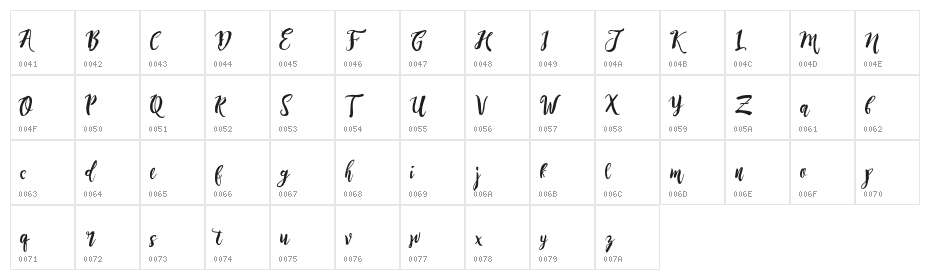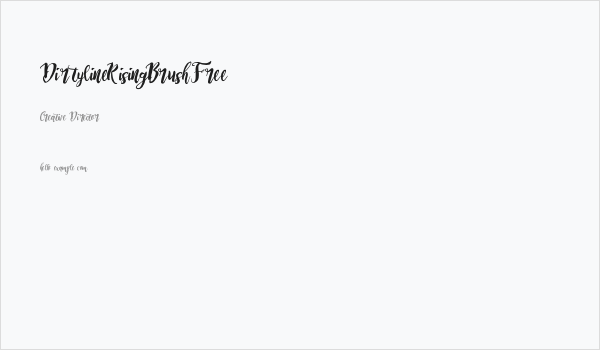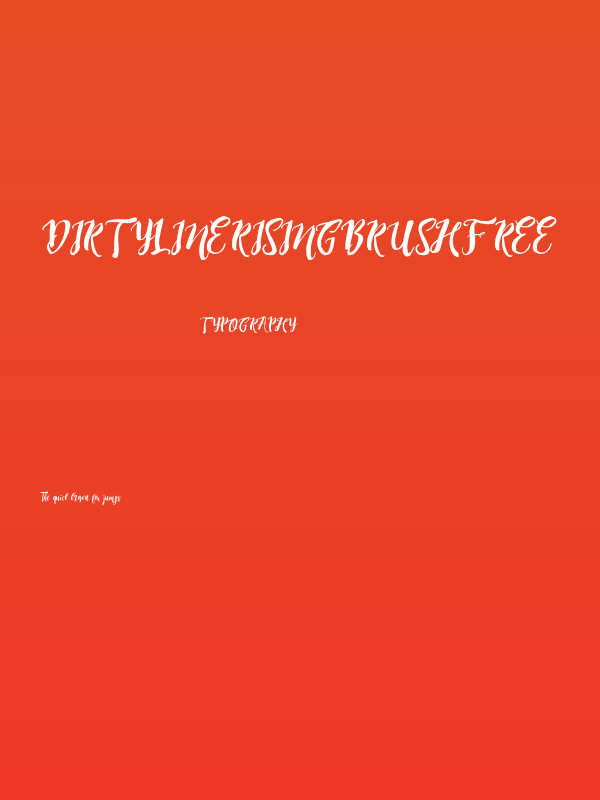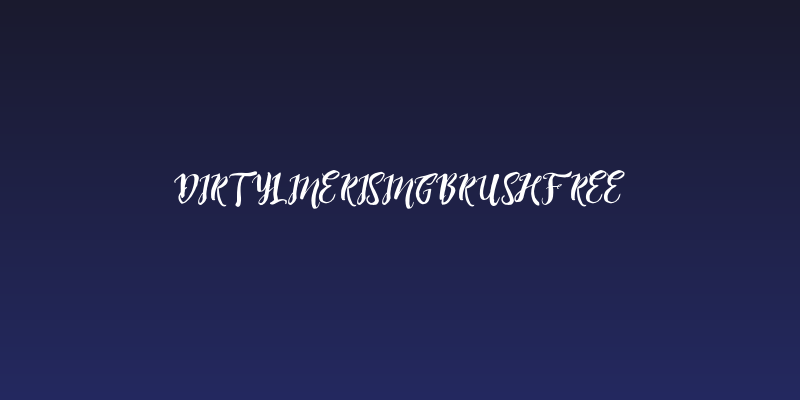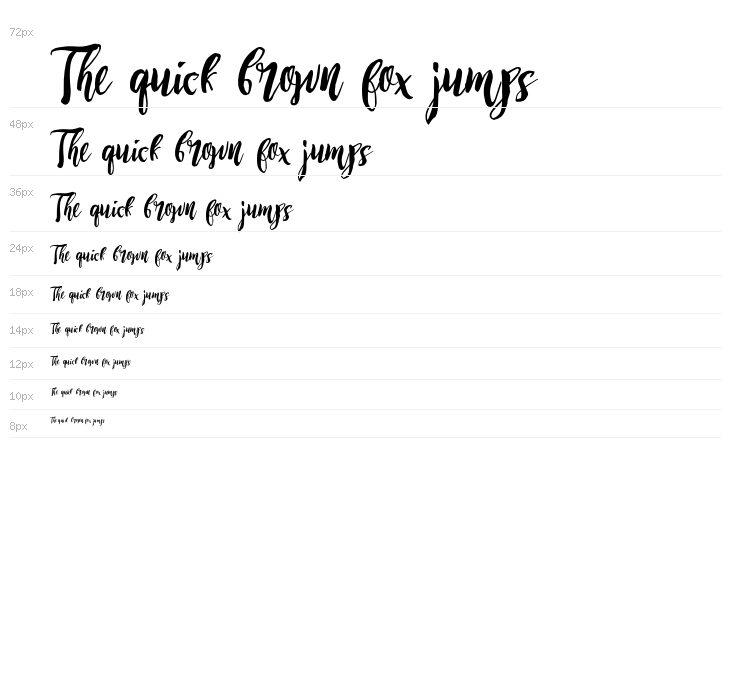
DirtylineRisingBrushFree Font
DirtylineRisingBrushFree Description
This font features a dynamic and expressive brush style, characterized by its bold and fluid strokes. The letters exhibit a hand-painted appearance, with varying thickness that adds a sense of movement and energy. The uppercase letters are particularly striking, with dramatic flourishes and a slightly slanted orientation that enhances the overall artistic feel. The lowercase letters maintain the same energetic style, with smooth connections and a consistent flow. This font is ideal for projects that require a personal and creative touch, such as invitations, posters, or branding materials. Its unique style captures attention and conveys a sense of individuality and flair.
| Proposed Projects | Ideal for invitations, posters, branding materials, and any project needing a creative touch. |